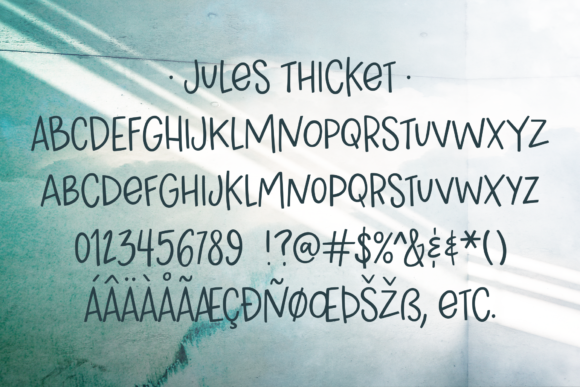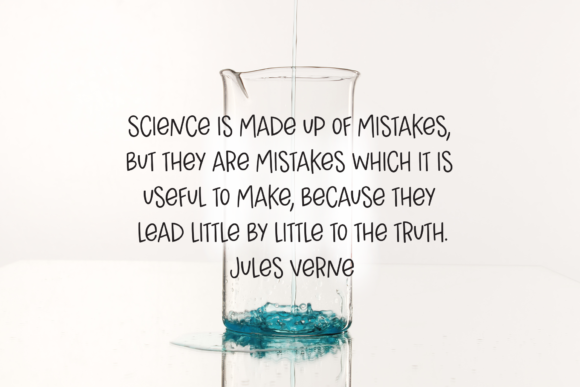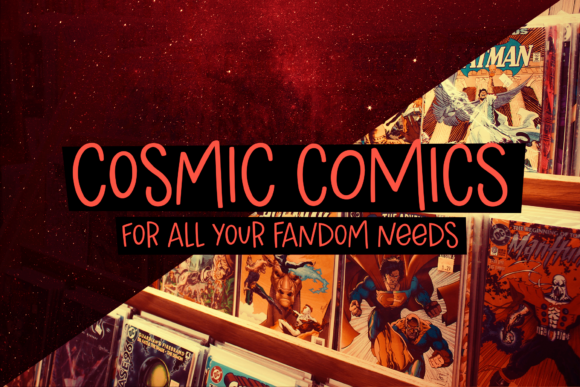
Introduction to Jules Thicket Font
Jules Thicket is a modern, unique sans serif font.
With its neat and beautiful arrangement of letters, this typeface will look outstanding in both formal and non-formal designs .
Jules Thicket Font offers exceptional quality and versatility, making it a valuable addition to your design toolkit. Whether you’re creating for personal projects or commercial use, Jules Thicket Font delivers professional results.